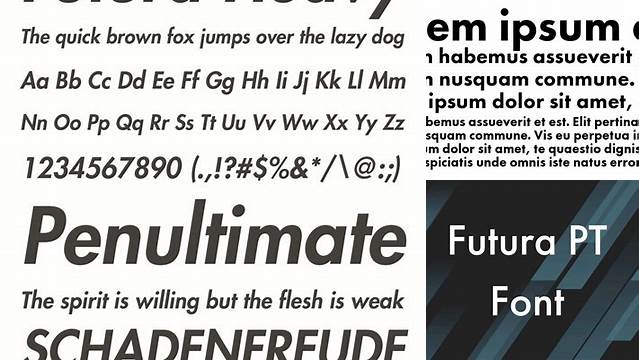
Hey everyone! If you're on the hunt for a powerful, versatile, and visually striking font, then you've probably crossed paths with Futura PT Web Heavy. This font is a cornerstone in the design world, known for its clean lines, geometric shapes, and undeniable impact. In this in-depth guide, we'll delve into everything you need to know about the Futura PT Web Heavy font, including where to find a free download, its usage, and how it can elevate your design projects. Let's dive in, shall we?
Understanding Futura PT Web Heavy Font
So, what exactly makes Futura PT Web Heavy such a standout font? Futura, designed by Paul Renner, is a geometric sans-serif typeface that has been a favorite of designers for nearly a century. The 'Heavy' variant, as the name suggests, offers a bolder, more assertive presence compared to the regular Futura fonts. It's the perfect choice when you need to grab attention, make a statement, or simply add a touch of sophistication to your design.
Futura PT Web Heavy is a specifically designed version for web use, ensuring optimal readability and display across various screen sizes and devices. The font's clarity makes it ideal for headlines, titles, and any design elements that require a strong visual impact. Because it is a web font, it is meant to be easily implemented on websites and other digital platforms. One of the most compelling aspects of Futura PT Web Heavy is its versatility. It seamlessly blends into a variety of design styles, from minimalist layouts to more complex compositions. Its timeless appeal means it never really goes out of style, which is a major bonus for designers who want their work to have a lasting impression. Consider how often you see this font used in logos, advertising, and editorial design—it's a testament to its enduring popularity and effectiveness. The font’s clean and geometric design lends itself well to creating a sense of modernity and professionalism. This makes it a great selection for branding, corporate communications, and any project where you need to convey reliability and trustworthiness.
Beyond its aesthetic appeal, Futura PT Web Heavy is also technically sound. It's optimized for clear rendering on screens, which is crucial in today's digital landscape. The font's design ensures that even at smaller sizes, the characters remain legible, allowing for a smooth and engaging user experience. This is particularly important for web designers who need to consider both the visual appeal and the functionality of their designs. Using Futura PT Web Heavy means you are choosing a font that has been carefully crafted to meet the demands of modern digital design. To fully grasp the impact of Futura PT Web Heavy, think about the kind of message you are trying to convey. Are you looking to project strength, stability, and a modern aesthetic? If so, Futura PT Web Heavy is a perfect fit. The boldness of the font, combined with its clean lines, will create a powerful visual experience that leaves a lasting impression on your audience. You can experiment with different weights and sizes to achieve the desired effect. The font is not just a visual element; it is a tool that can enhance the overall communication strategy of your project. The choice of font sends a silent message about your brand or project. Futura PT Web Heavy is a font that signals professionalism, modernity, and reliability. So, when you choose this font, you are telling your audience that you are committed to quality and attention to detail. The thoughtful selection of your fonts is just as important as any other component of your design process.
Utilizing Futura PT Web Heavy in Your Designs
So, you've got the font, now what? Futura PT Web Heavy is incredibly versatile, making it suitable for a wide range of design projects. Let’s explore some ways you can leverage its power:
First up, use it for headlines and titles. The bold weight and clean lines of Futura PT Web Heavy make it perfect for grabbing attention. Create striking headlines for websites, posters, and advertisements that immediately capture the audience's eye. In the realm of logo design, Futura PT Web Heavy can be a strong choice for companies wanting to project a modern and reliable image. The geometric simplicity of the font lends itself well to creating a recognizable and memorable brand identity. Consider the impact on website design. Use Futura PT Web Heavy for navigation menus, headers, and other prominent design elements. Its readability ensures a user-friendly experience. The font's clarity helps users find the content they need. When you're working on print materials, like brochures and flyers, Futura PT Web Heavy can provide a professional and polished appearance. Use it for headings, call-to-action elements, and other key pieces of text to create a strong visual hierarchy. Editorial design, such as magazines and books, can benefit from Futura PT Web Heavy. Use it for headlines and subheadings to add emphasis, creating a visually appealing layout that guides the reader through the content. And what about social media graphics? Use Futura PT Web Heavy to create captivating visuals that stand out on platforms like Instagram and Facebook. The font's strong presence will make your content more shareable. When using Futura PT Web Heavy, consider the context of your design. Pair it with other fonts, but be mindful of the font combinations. A good rule is to pair a strong headline font with a more subtle body font to create a balanced visual experience. Ensure that the font size and spacing are appropriate for the chosen medium. Think about the overall aesthetic you want to achieve. Whether you are designing for print or digital media, remember that the goal is to create something that is both aesthetically pleasing and functional. By considering these aspects, you can make sure the font enhances, not hinders, your design's goals.
Best Practices and Design Tips
To get the most out of Futura PT Web Heavy, here are some best practices and design tips to keep in mind:
1. Pairing with Other Fonts: Although Futura PT Web Heavy is strong on its own, it works great with other fonts. When choosing a complementary font, opt for a font that contrasts in style. For instance, a more delicate or handwritten font can create an interesting visual dialogue with the bold Futura PT Web Heavy. Avoid pairing it with fonts that are too similar, which can create a clash rather than a harmonious effect.
2. Font Size and Weight: Adjust the font size and weight according to the design requirements. For headlines, a larger size and heavier weight are appropriate, while for subheadings, you might opt for a slightly smaller size and lighter weight. Always ensure that the text is readable, no matter the size.
Conclusion: Embracing the Power of Futura PT Web Heavy
So, there you have it! Futura PT Web Heavy is a fantastic font that can take your designs to the next level. From finding a free download to implementing it in your projects, we've covered everything you need to know. Whether you're a seasoned designer or just starting out, this font is a must-have in your toolkit. With its versatility, timeless appeal, and ease of use, it's no wonder Futura PT Web Heavy remains a design favorite. Now go forth and create some stunning designs! Happy designing, everyone!